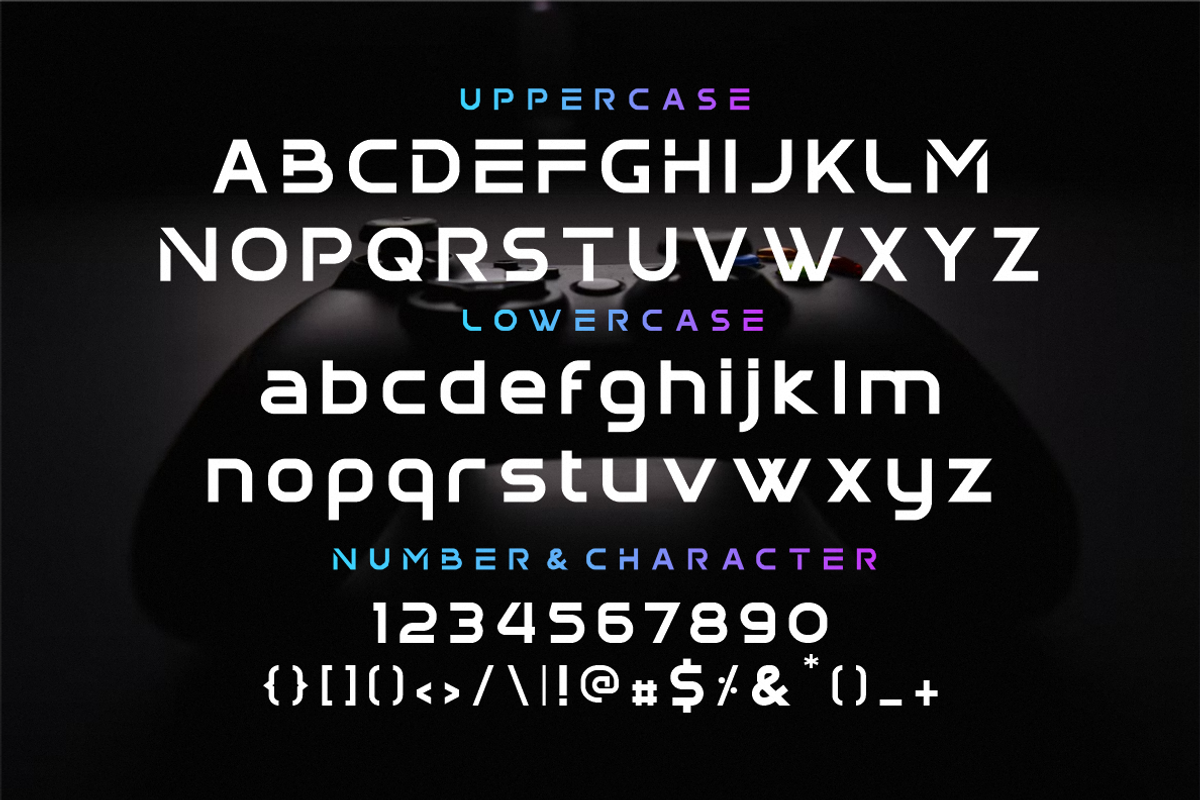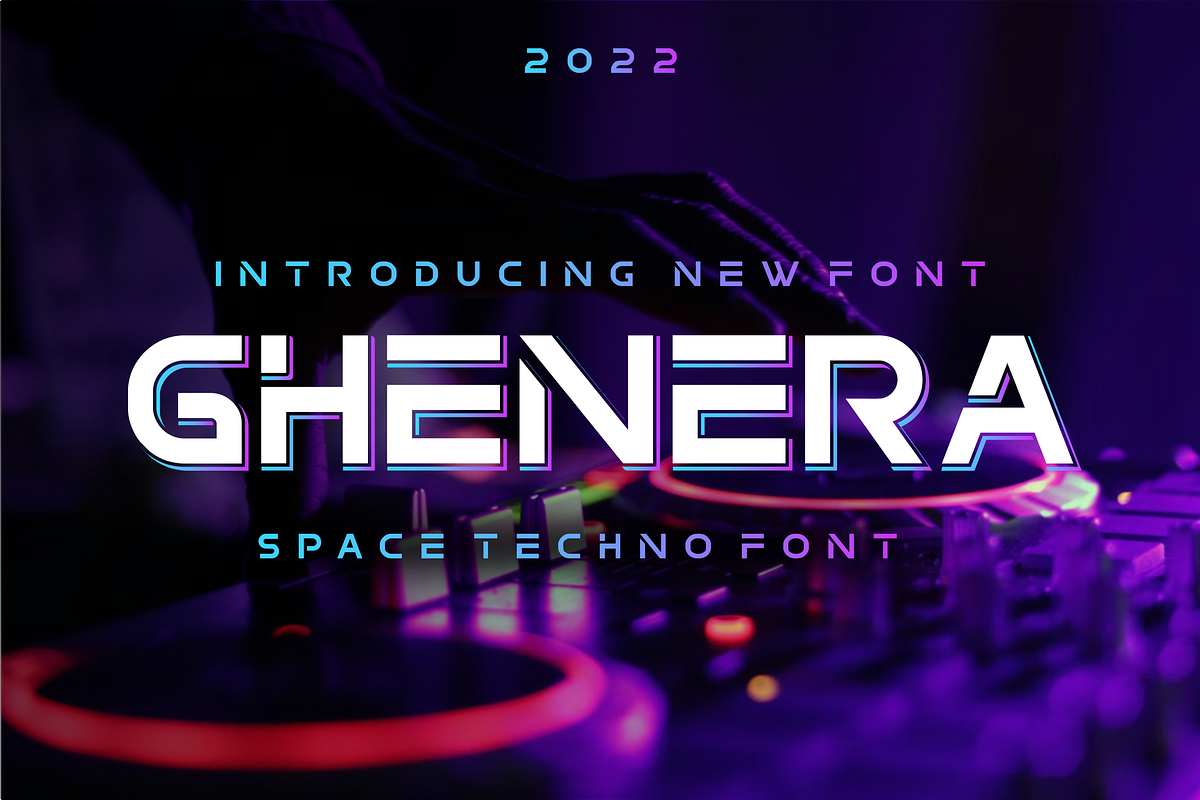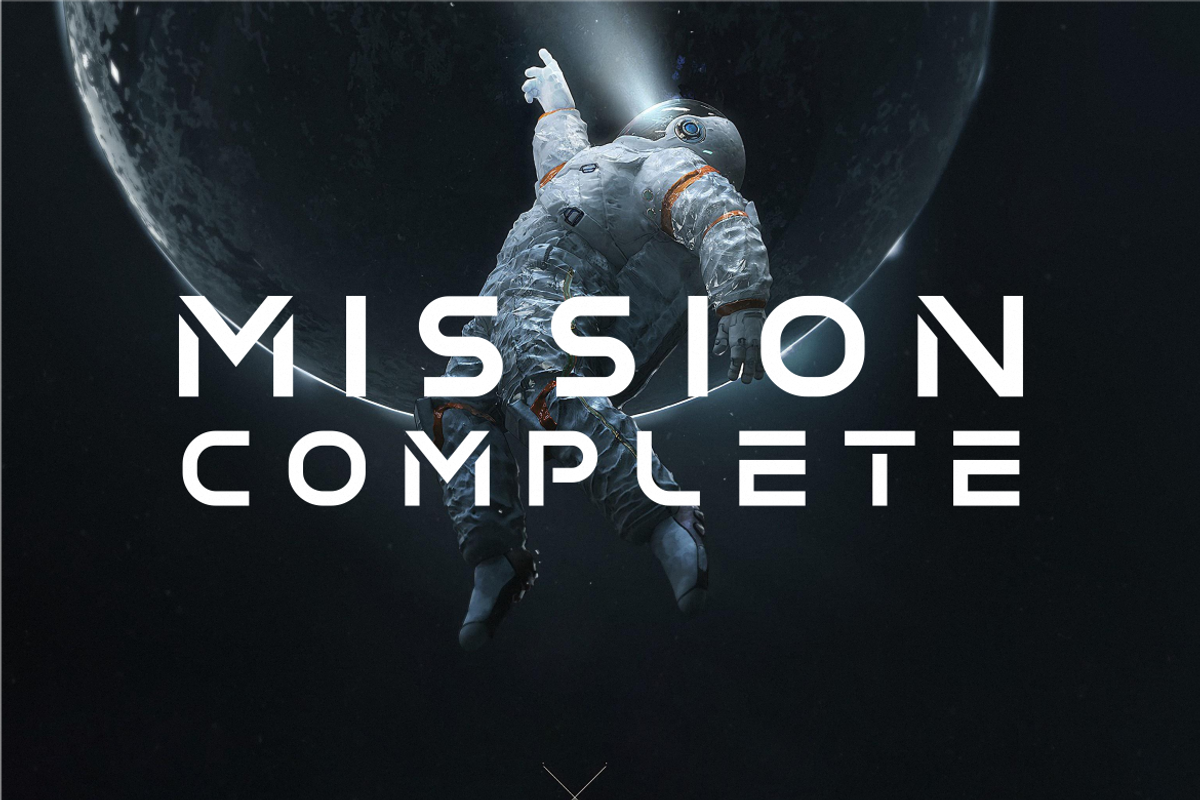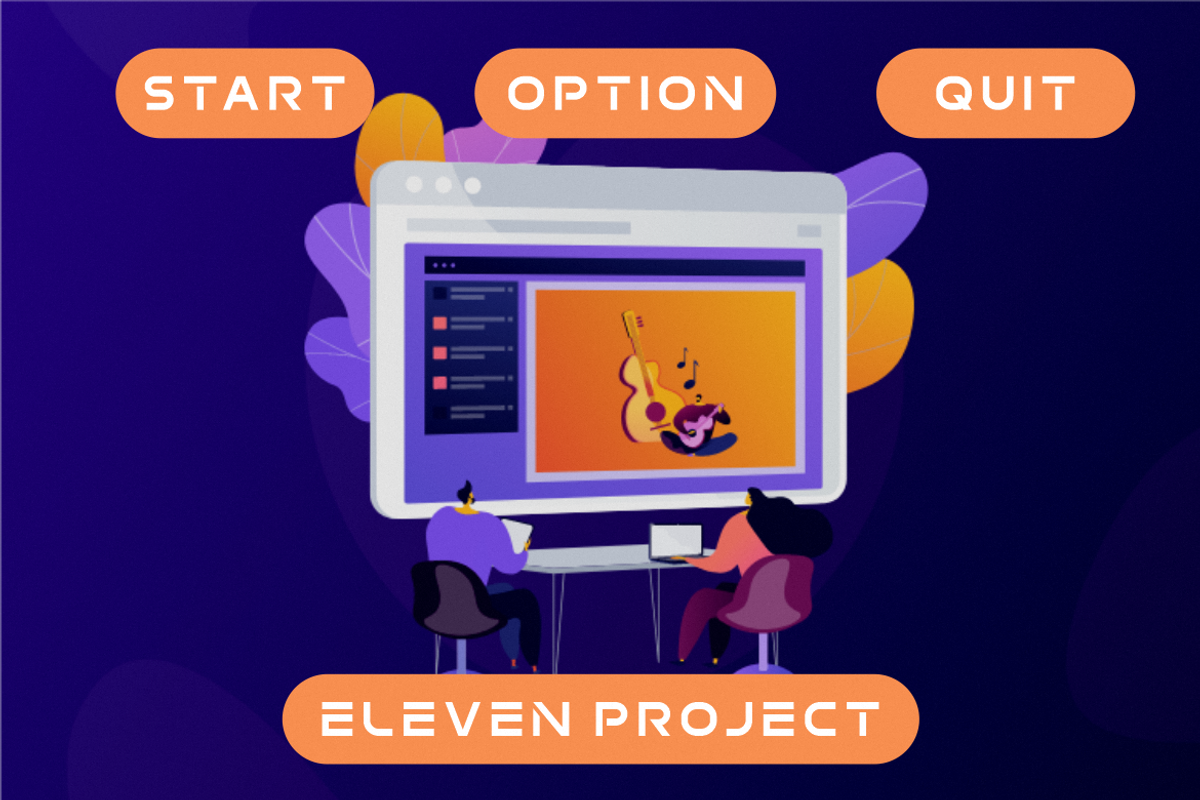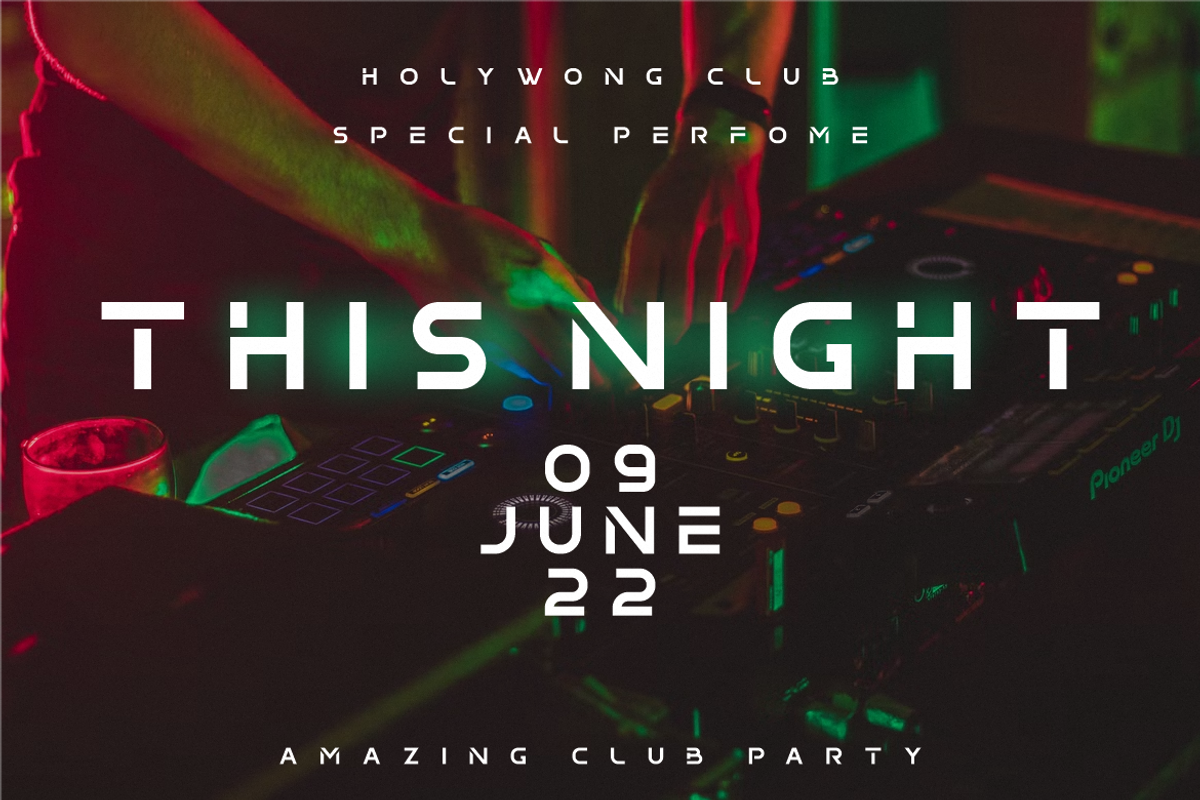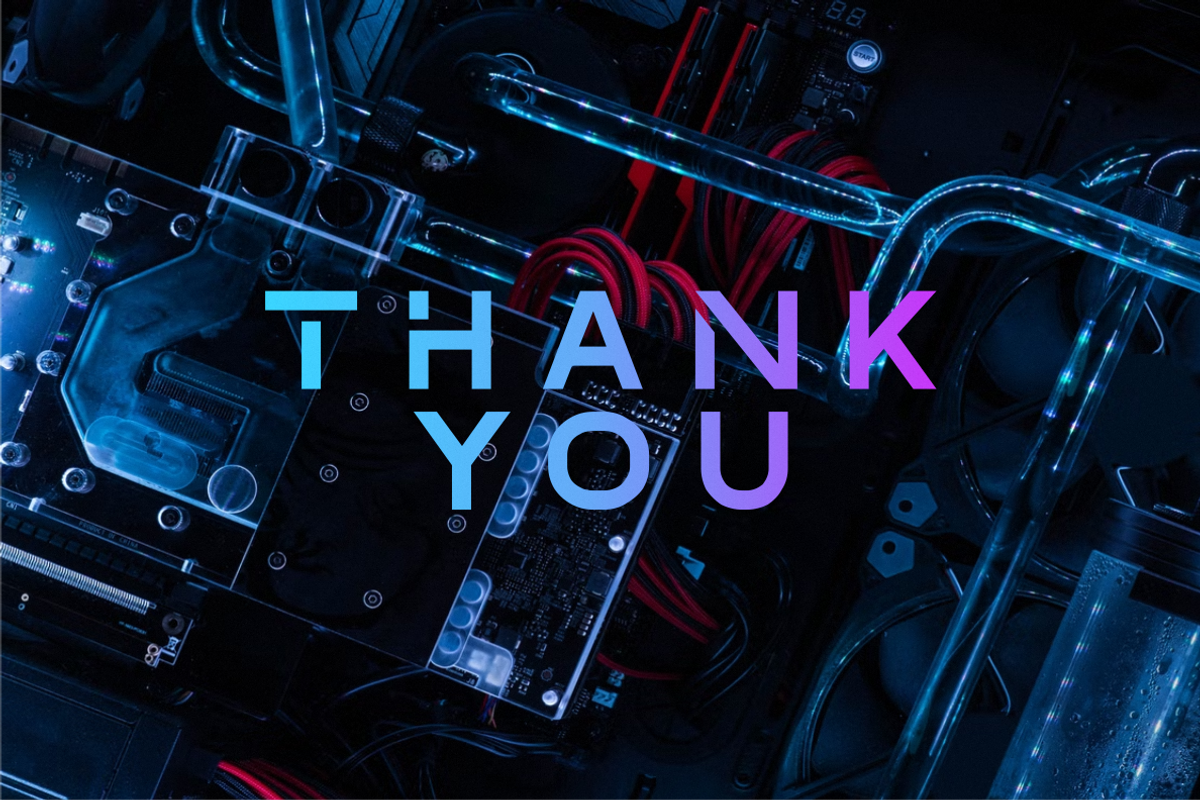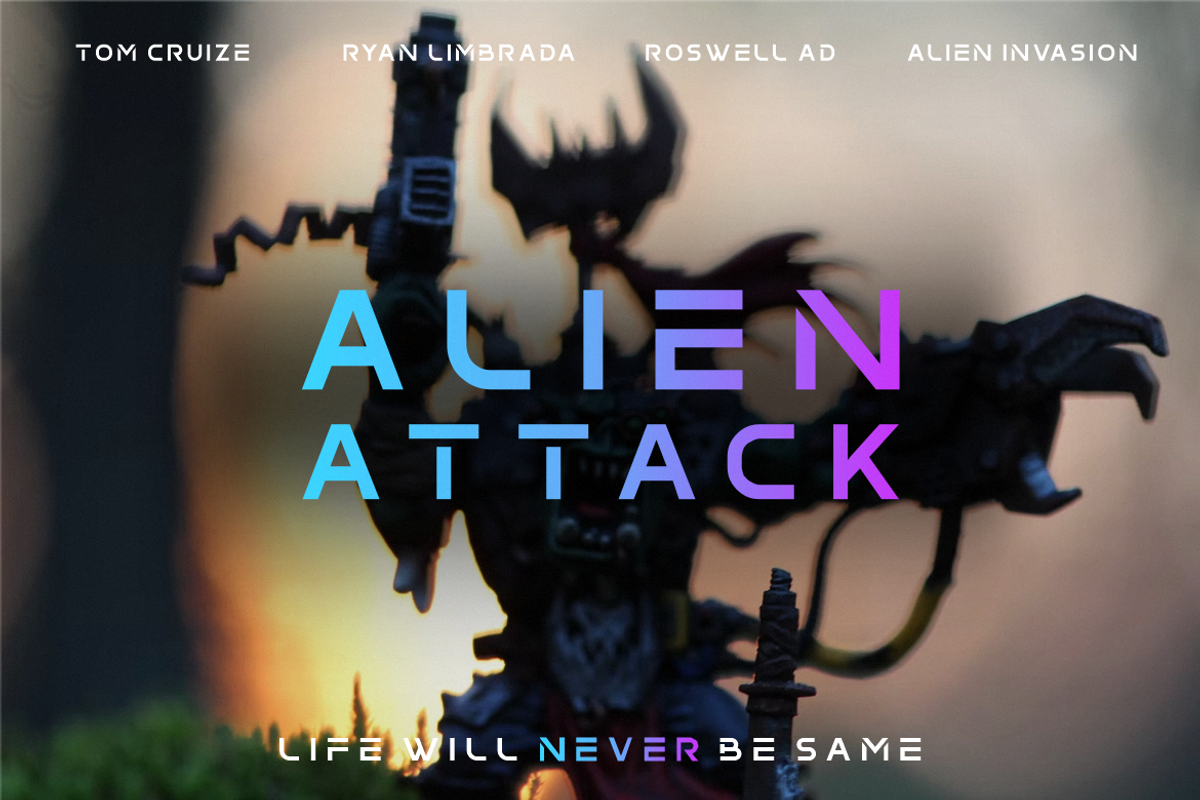
Ghenera Techno Font
Introducing our new product Ghenera Techno Font - Modern Font
Ghenera Techno Font - Modern Font is a bold and authentic display font. The font is suitable for any branding project like logo, t-shirt printing, esport, and many more. outstanding in a wide range of contexts.